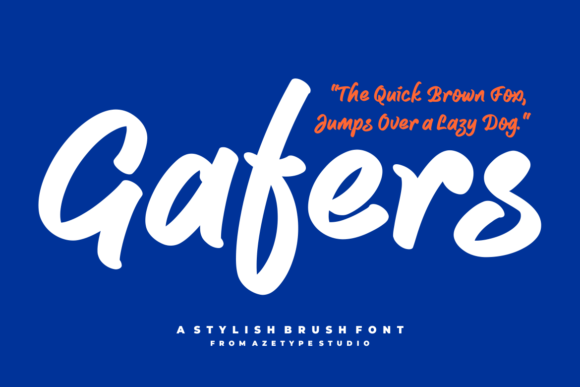
Unleash your creativity with Gafers, the remarkable script font that captivates with its authentic brush strokes. Its casual demeanor adds a touch of groundedness, enhancing readability and versatility. Gafers shines in any setting, effortlessly blending into bustling backgrounds or commanding attention as a standalone headline.
Gafers isn't just a font; it's an expression of artistry. Its solid brush form exudes a charm that's both inviting and impactful. It's like having a personal calligrapher at your fingertips, translating your words into visual masterpieces. Whether you're a seasoned designer or just starting, Gafers will elevate your projects to new heights.
Immerse yourself in the world of Gafers and discover endless possibilities. Let your imagination run wild as you craft stunning logos that leave a lasting impression, eye-catching posters that demand attention, or personalized invitations that exude warmth. Gafers is the ultimate companion for those who seek authenticity and a touch of artistry in their designs.
Don't settle for ordinary fonts that blend into the background. Embrace the power of Gafers and let your creativity soar. Its versatility knows no bounds, making it perfect for a multitude of projects. From social media graphics that pop to heartfelt quotes that resonate, Gafers will transform your designs into captivating works of art.
Join the creative revolution and make Gafers your go-to font for cutting stencils. Its bold, brush-like strokes are perfect for creating unique and captivating stencils that add a personalized touch to your projects. Whether you're a seasoned stencil enthusiast or exploring this art form for the first time, Gafers will empower you to create stunning works that reflect your unique style.
With Gafers, you'll discover a world of creative possibilities, where your imagination is the only limit. Its captivating charm will add a touch of magic to your designs, leaving a lasting impression on your audience. Experience the transformative power of Gafers today and unlock the true potential of your creativity.